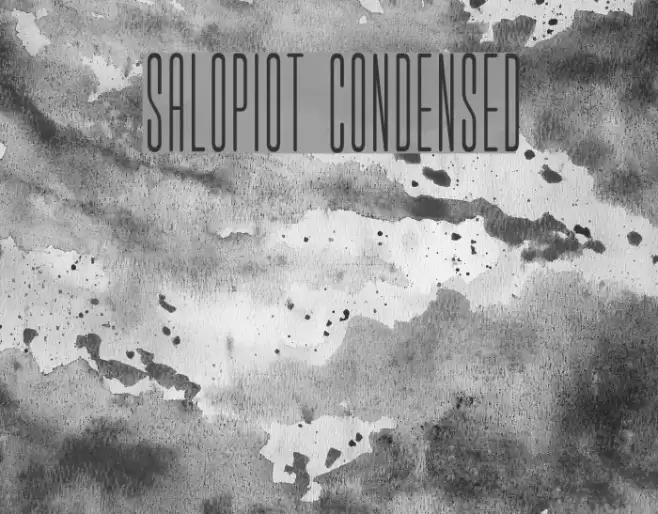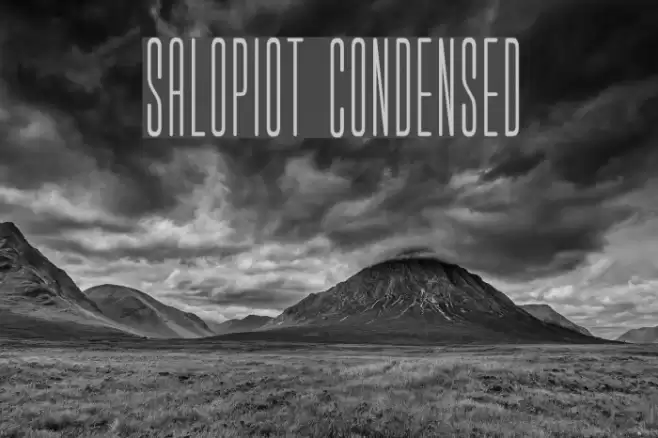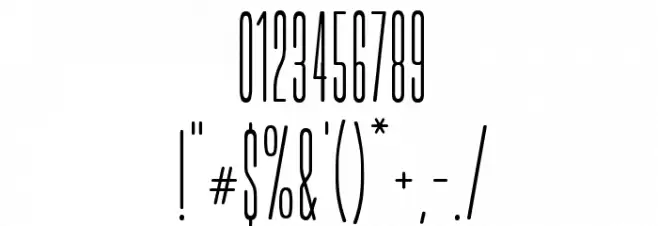
salopiot condensed Font
salopiot condensed Description
This font features a tall, narrow design with a distinctly condensed appearance. The characters are elongated and maintain a uniform stroke width, giving it a sleek and modern look. The uppercase and lowercase letters are consistent in style, with sharp edges and clean lines. The numerals and special characters follow the same condensed and streamlined aesthetic, making the font suitable for creating a cohesive visual identity. Its minimalistic design is ideal for projects that require a contemporary and professional touch.
A tall, narrow, and modern condensed font with uniform stroke width from Uncategorized fonts.
- Proposed Projects: Ideal for branding, posters, headlines, and editorial design where a modern and sleek appearance is desired.
- Character Spacing: Tight